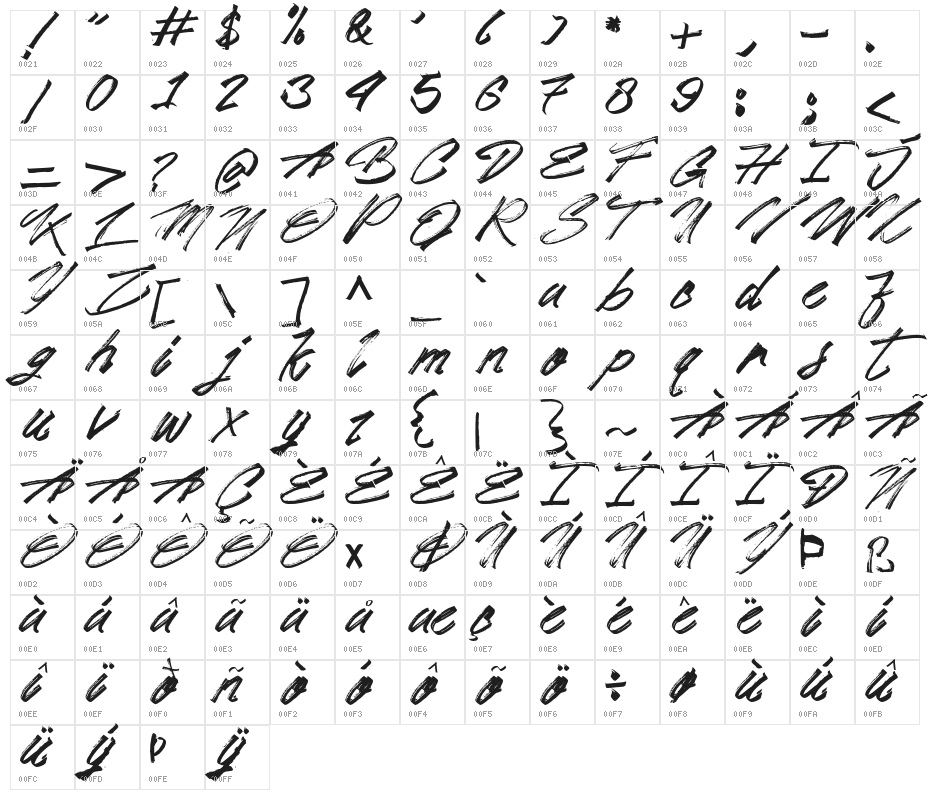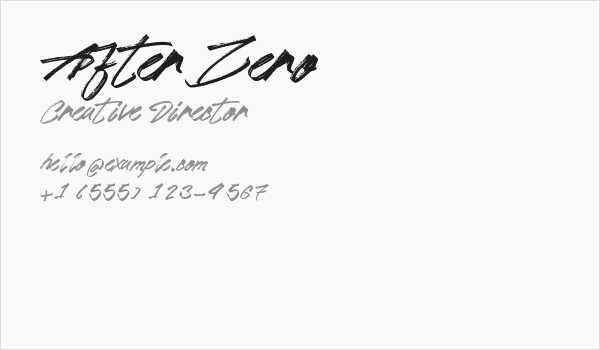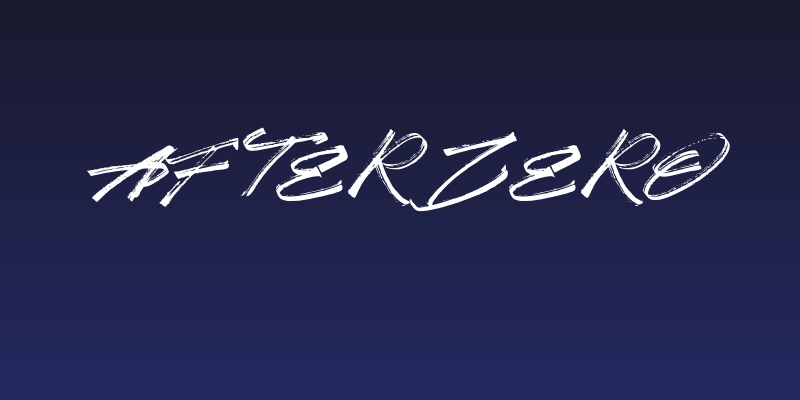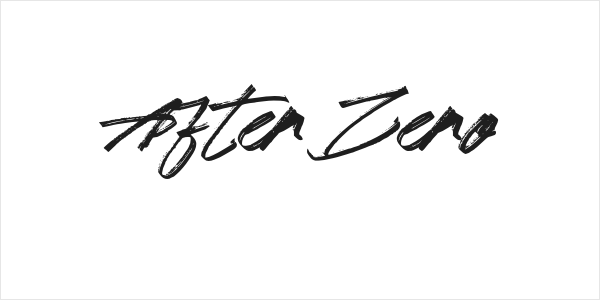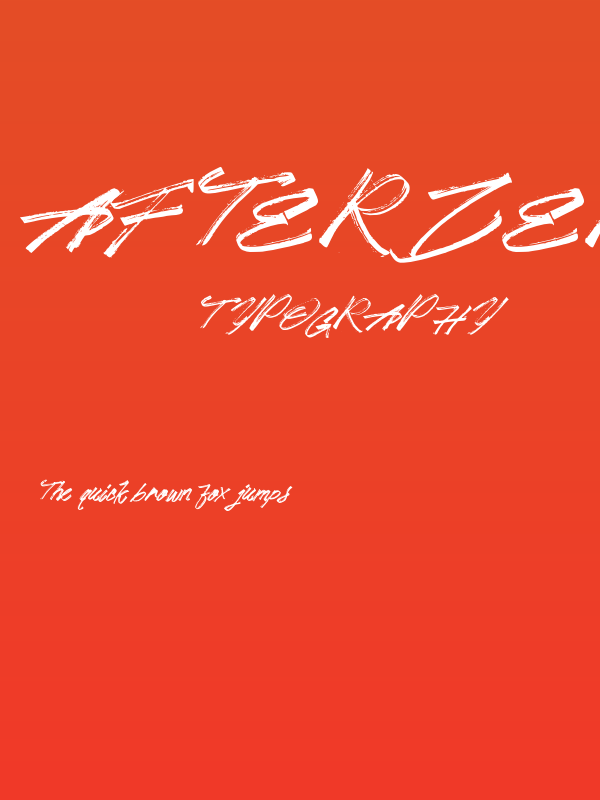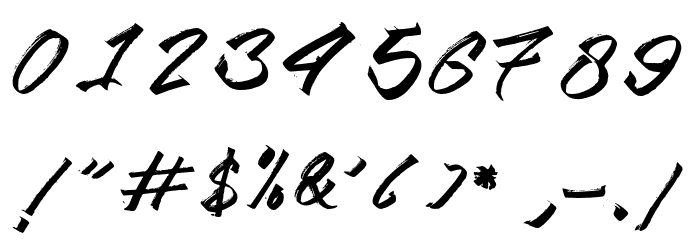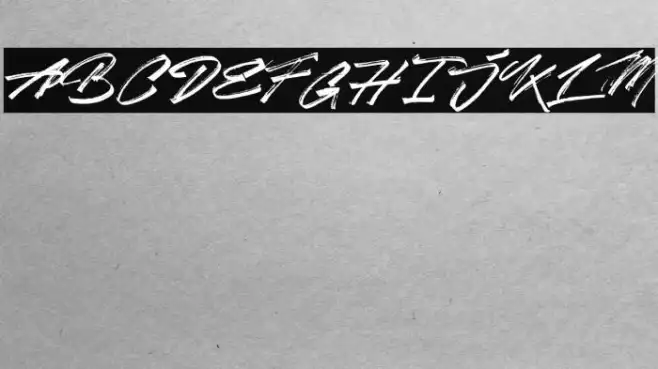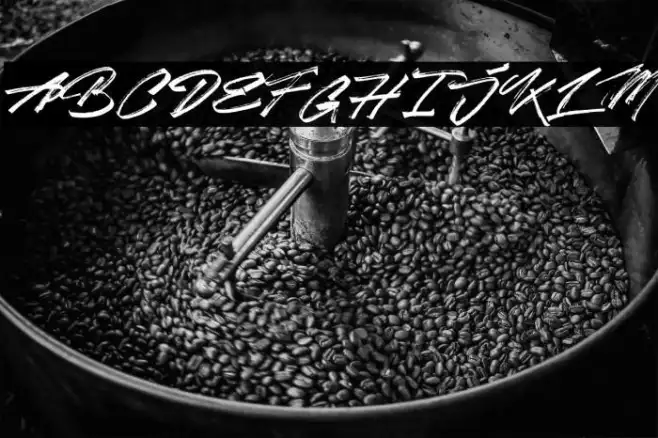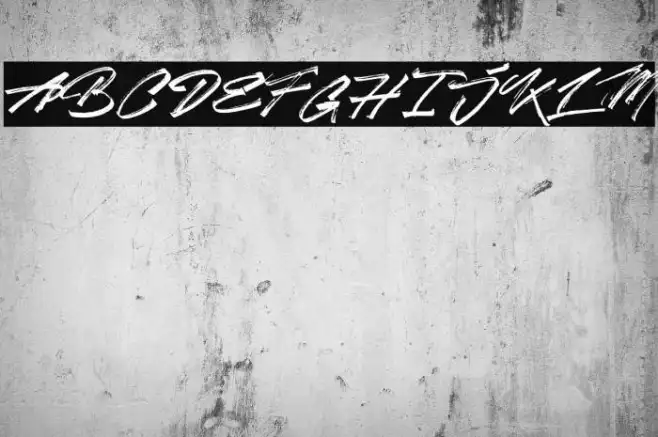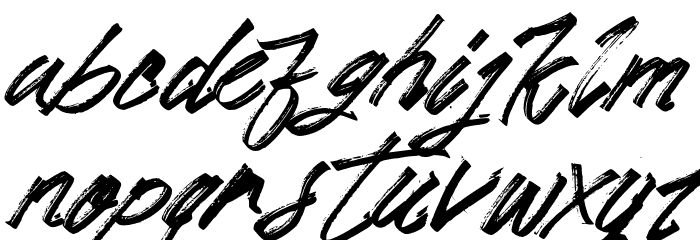
AfterZero Font
AfterZero Description
This font features a dynamic and expressive script style with a brush-like texture, giving it a hand-painted appearance. The letters are connected in a fluid manner, creating a sense of movement and energy. The uppercase and lowercase letters maintain a consistent style, with varying stroke widths that add to the font's artistic flair. The numbers and special characters are crafted with the same attention to detail, ensuring a cohesive look across all characters. This font's bold and textured strokes make it stand out, ideal for designs that require a personal and artistic touch.
| Proposed Projects | Ideal for branding, posters, invitations, and any project needing a personal, artistic touch. |